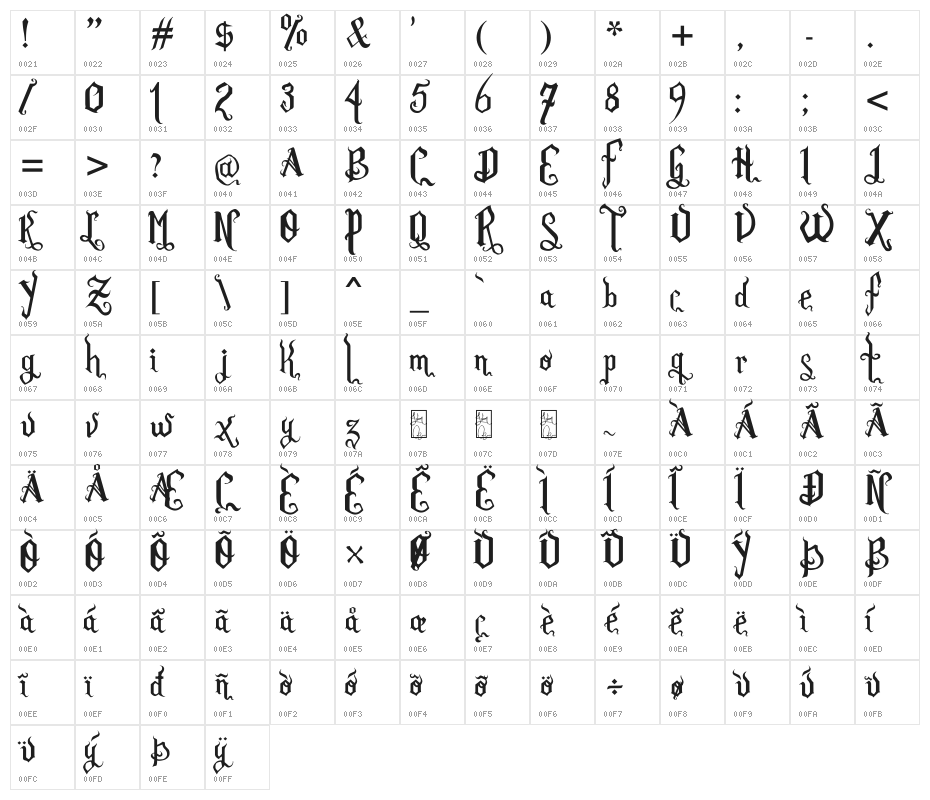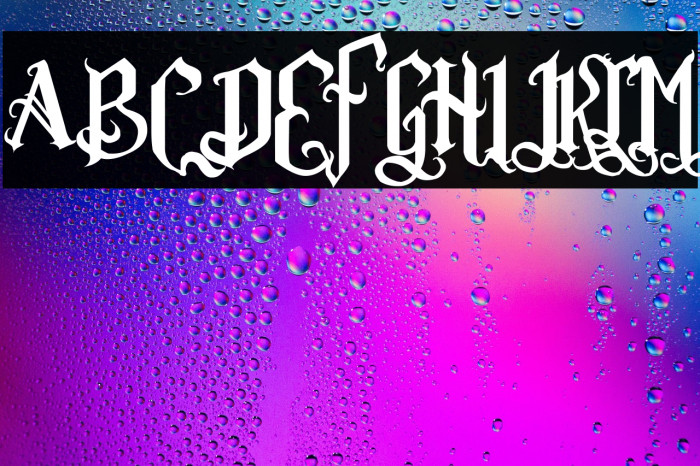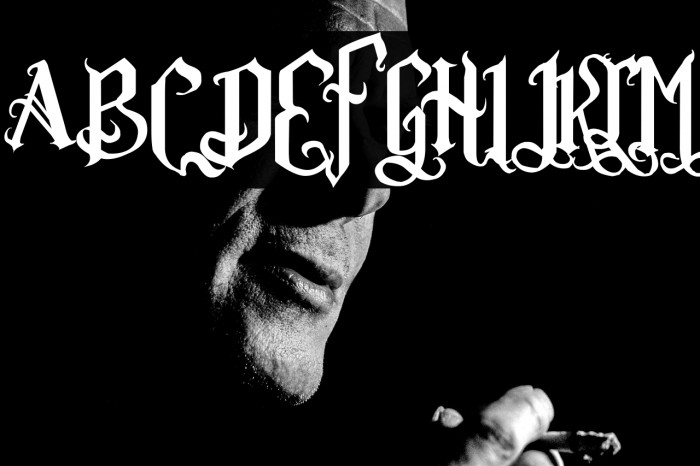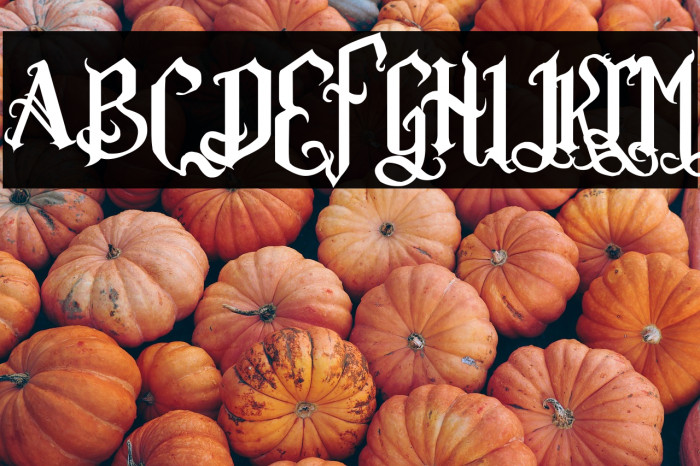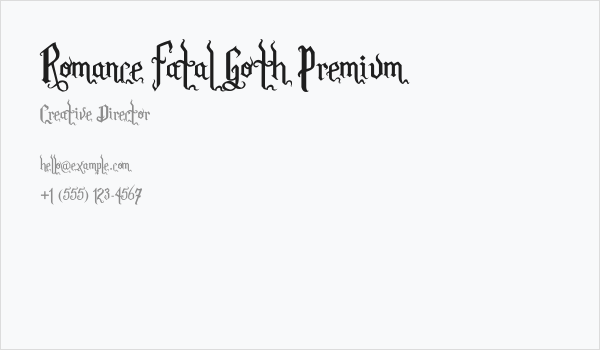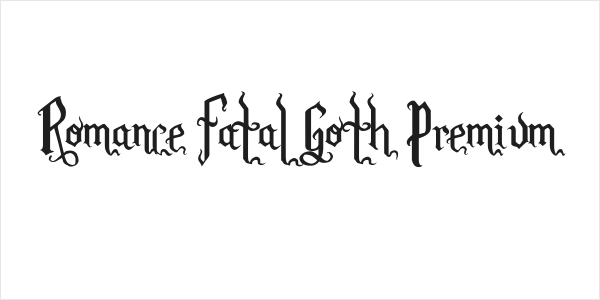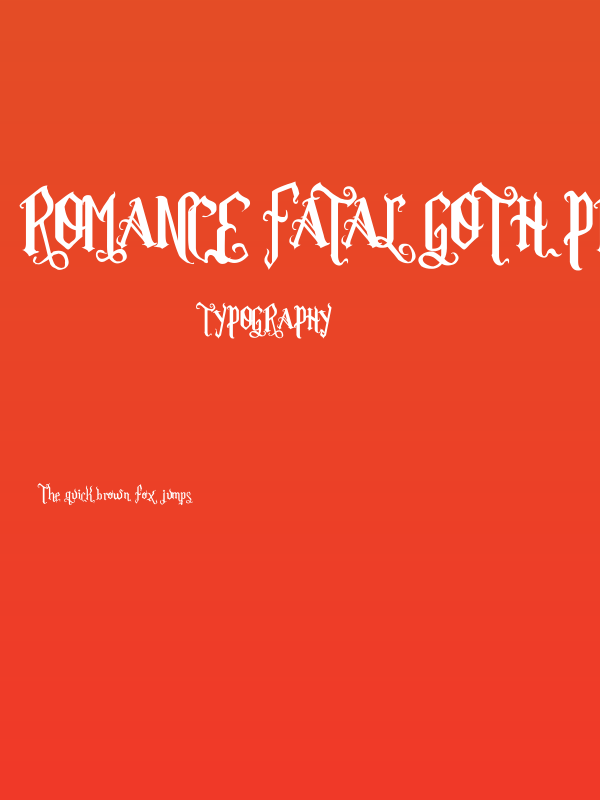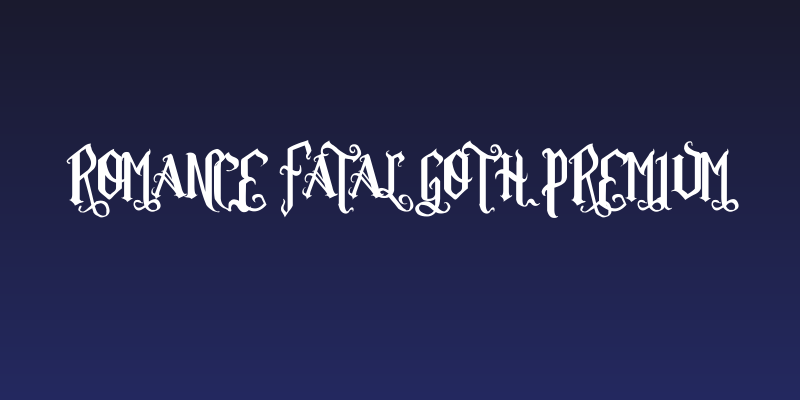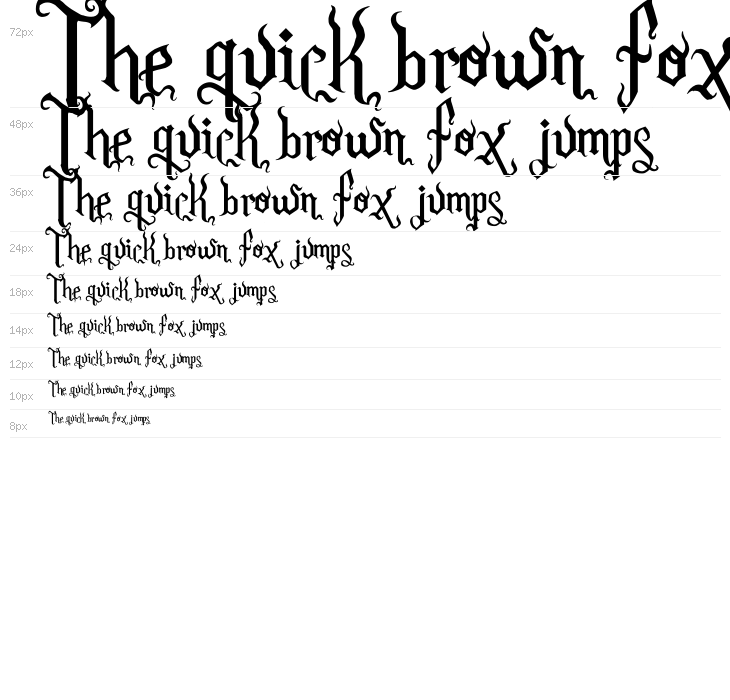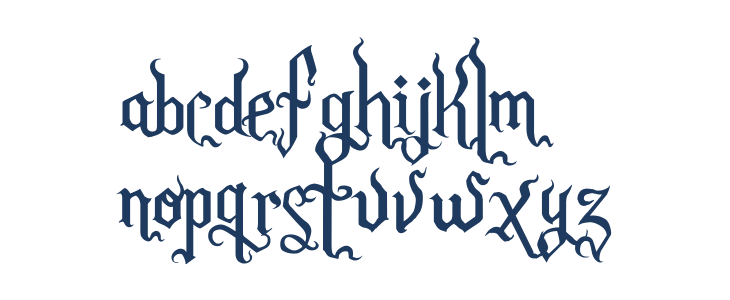
Romance Fatal Goth Premium Font
Romance Fatal Goth Premium Description
This font embodies a dramatic and intricate Gothic style, characterized by its sharp, angular lines and elaborate flourishes. The uppercase letters are bold and commanding, with a medieval flair that evokes a sense of mystery and elegance. The lowercase letters maintain the same intricate detailing, creating a cohesive and visually striking appearance. Numbers and special characters are equally ornate, ensuring consistency throughout. This font's high contrast between thick and thin strokes adds to its dramatic impact, making it ideal for projects that require a touch of historical or fantastical elements.
| Overall Style | Gothic, Decorative |
| Proposed Projects | Ideal for fantasy book covers, historical event posters, or gothic-themed branding. |